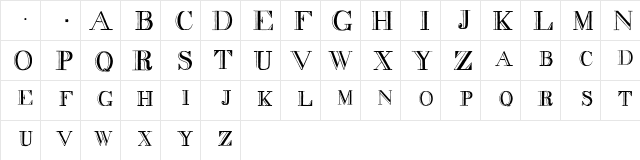
decadence without the diamonds Regular
Design Context for decadence without the diamonds Typeface
decadence without the diamonds is a composed and adaptable typeface that performs quietly and consistently across a wide range of design contexts.